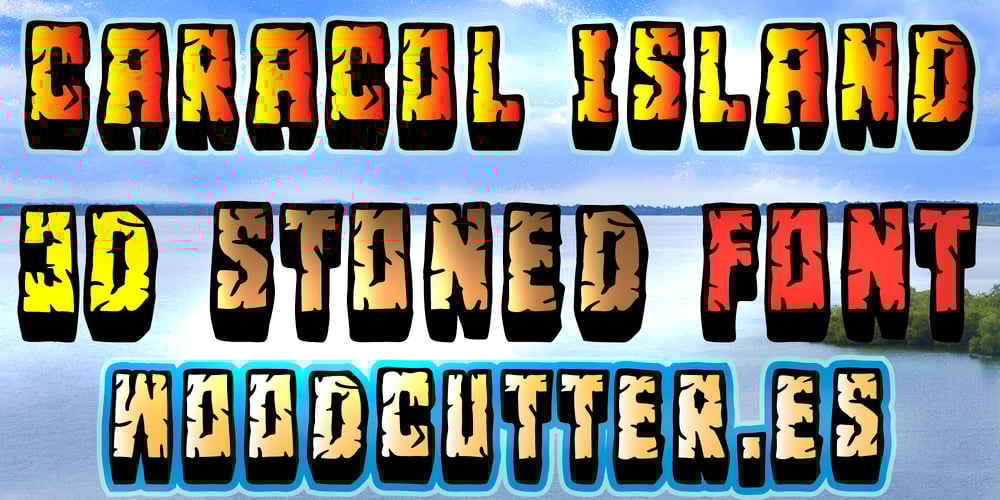
Caracol Island Font Family was designed by Jordi Manero and published by Woodcutter. Caracol Island contains 1 styles and family package options. “Caracol Island” is an uppercase typeface with a unique design, where each letter appears inverted, creating an intriguing and unconventional look. The style of the letters simulates cracked rocks, with irregular details that add texture and a rugged appearance. The shadows cast downward enhance the sense of weight and solidity, giving the impression that each letter is carved from stone. Ideal for designs seeking a rustic and natural touch, this font captures the essence of the primitive and the resilient.